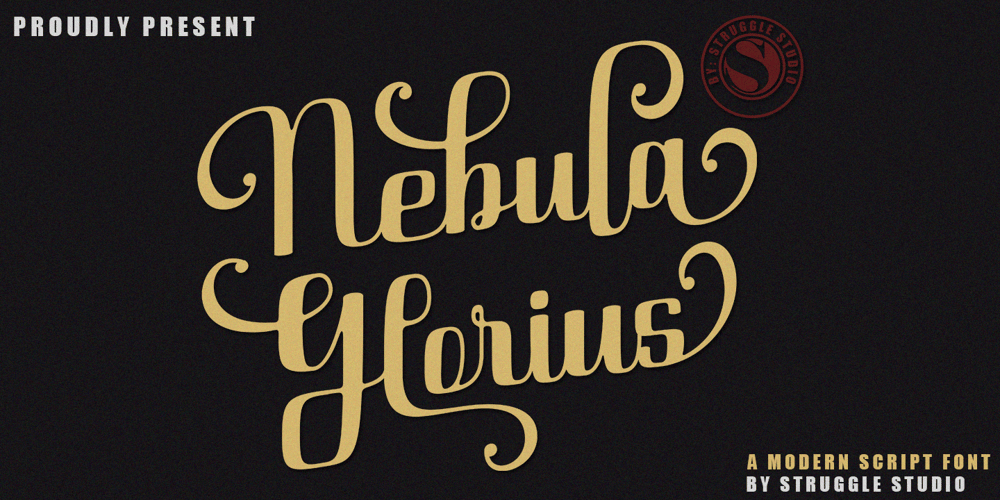
Nebula Glorius Font Family was designed by Andri Kurniawan and published by Struggle Studio. Nebula Glorius contains 1 styles and family package options. Give your typography designs a retro touch with the Glorius Nebula!Nebula Glorius is one of my fonts based on handwriting projects in 2021.This font is great for product logos, logos, clothing brand logos, vintage designs, and more.